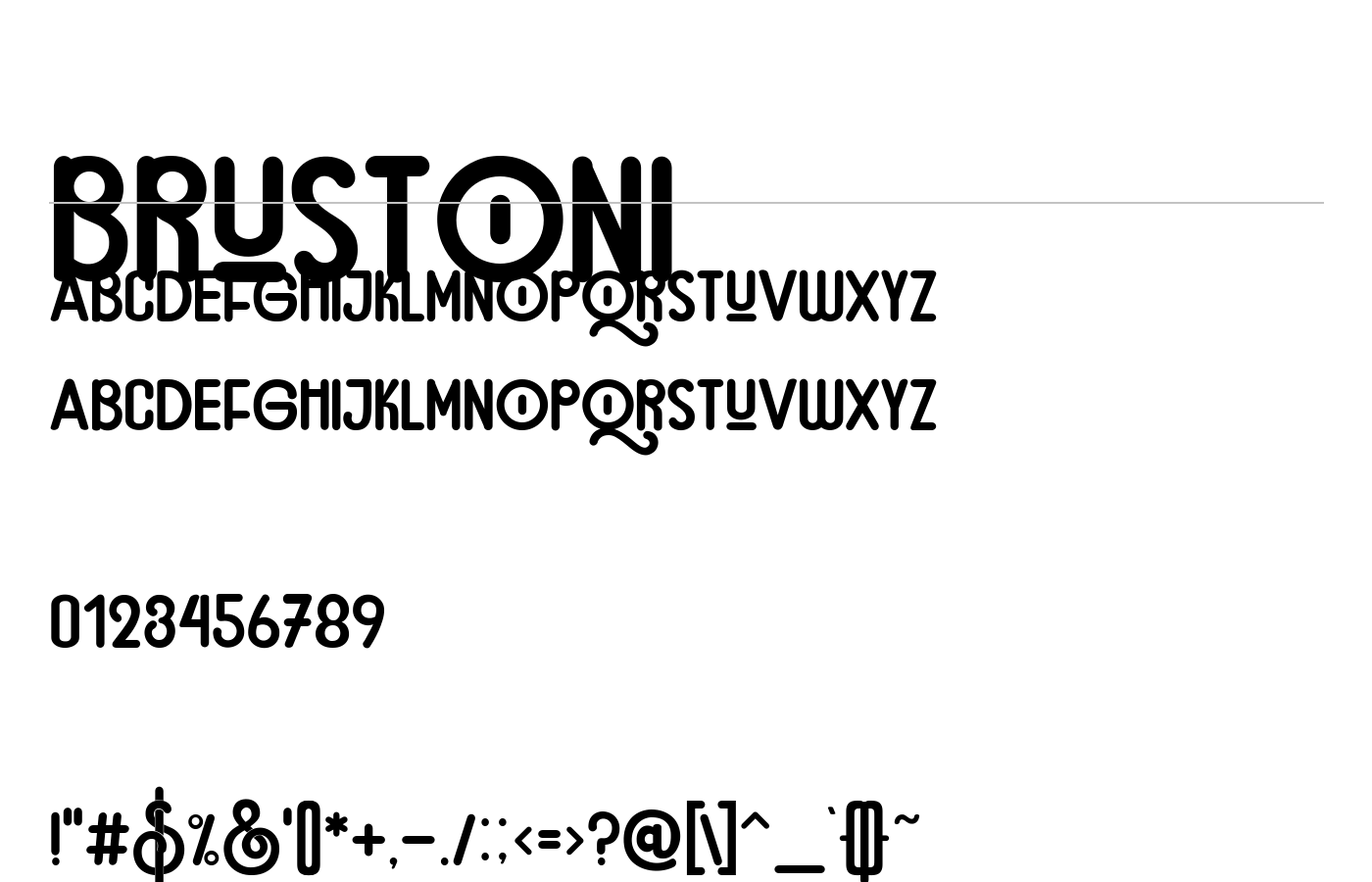
Brustoni is a modern sans-serif font with a condensed and geometric style, featuring a distinctive quirky personality through its rounded terminals and playful letterforms like the unique Q and the O with a vertical line inside. It has a medium weight and a clean, slightly tall x-height, making it both legible and eye-catching, perfect for creative headlines, logos, and branding that aim to stand out with a friendly yet contemporary vibe. This font works well in projects that desire a balance of professionalism and charm, such as editorial designs, packaging, and trendy web content.
brustoni Font
About brustoni Font